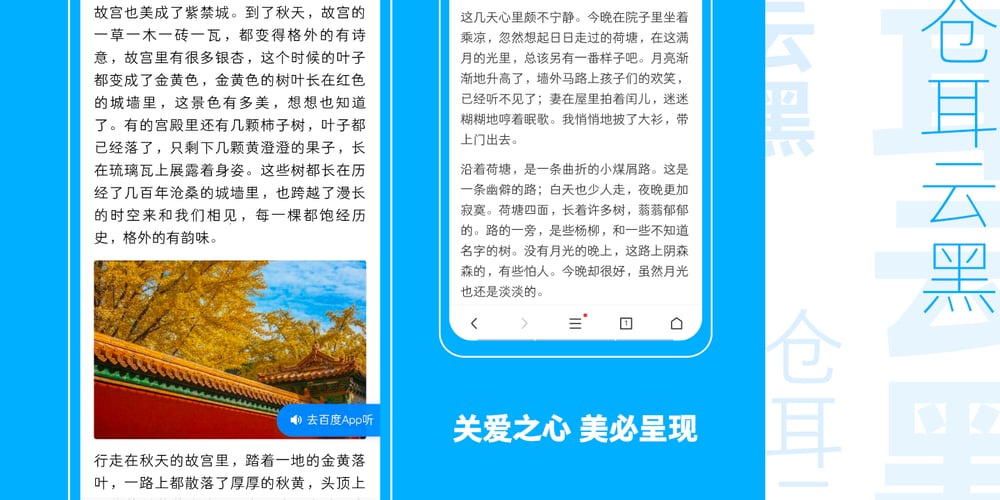
Tsanger Yun Hei SC Font Family was designed by Tsanger and published by Tsanger. Tsanger Yun Hei SC contains 8 styles and family package options. Tsanger Yunhei was designed and published by Tsanger. Tsanger Yunhei contains 8 styles and family package options. The designer has made unique treatment on the shape and structure of the pen, based on the Chinese calligraphy style and writing, which makes it easier to identify under the same size of the font and group reading effect better. Tsanger Yunhei is more in line with the aesthetic habits of Chinese characters getting the reading an easy task. This font adopts GB 2312—1980 standard, with a total of 6763 Chinese characters, matching Latin letters, Greek letters, Hiragana, Katakana, Russian Cyrillic letters, etc.